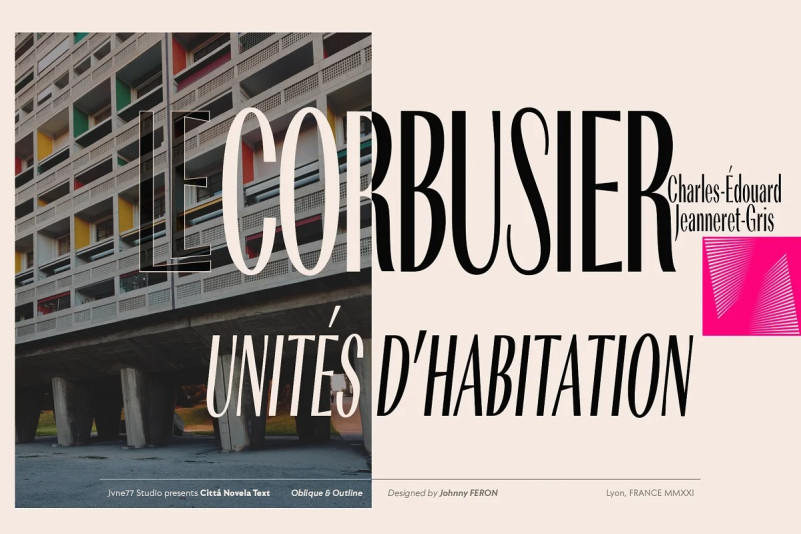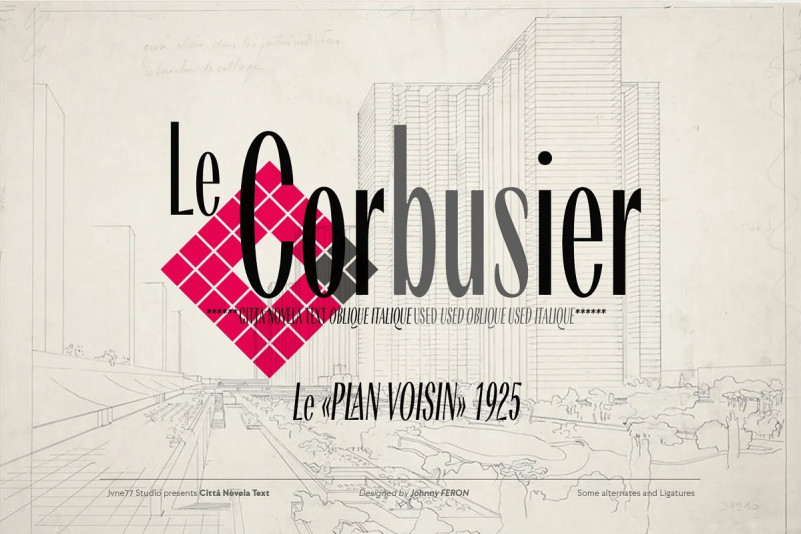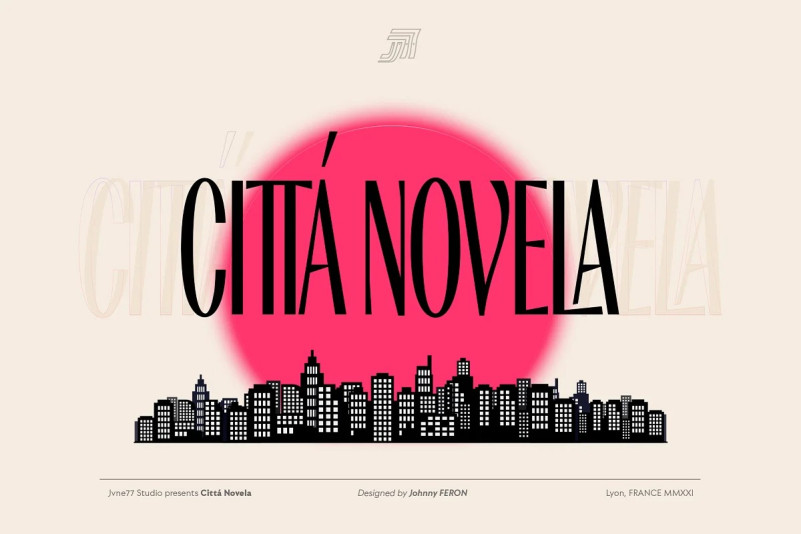
Citta Novela Font
Cittá Novela Font is an upright typeface family of 12 fonts inspired by vintage architecture from the mid 20’s to the 60’s. A classy and didonesque streamlined sans which will perfectly set in a poor line space for Titling and text. Multilingual, diacritics, ligatures and alternates for near 570 glyphes.